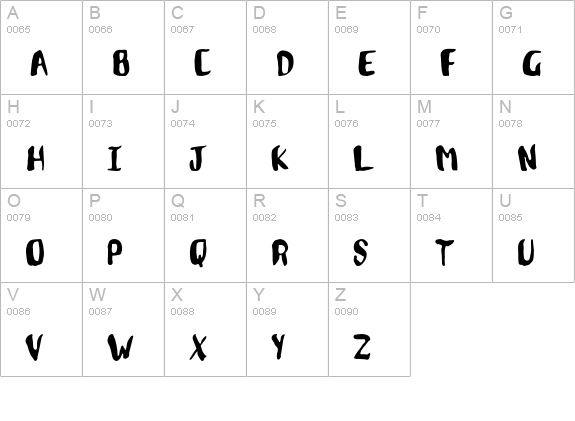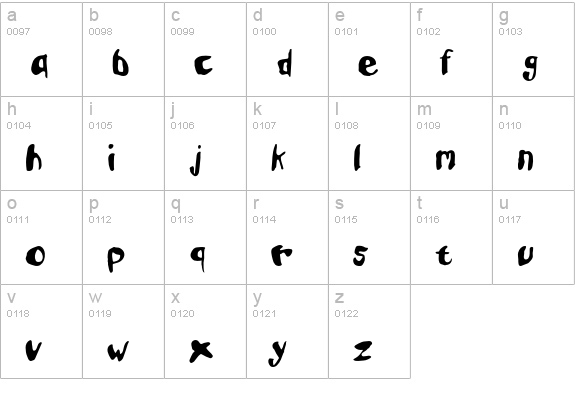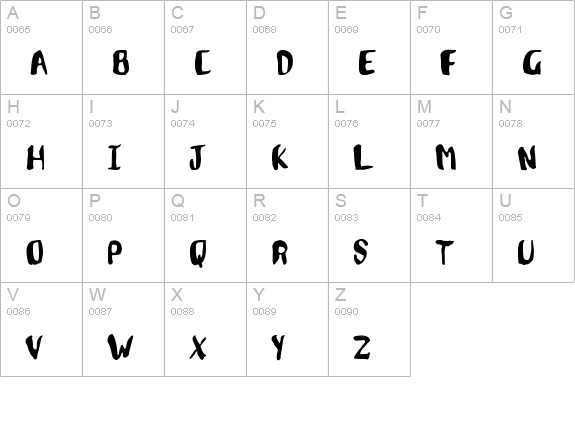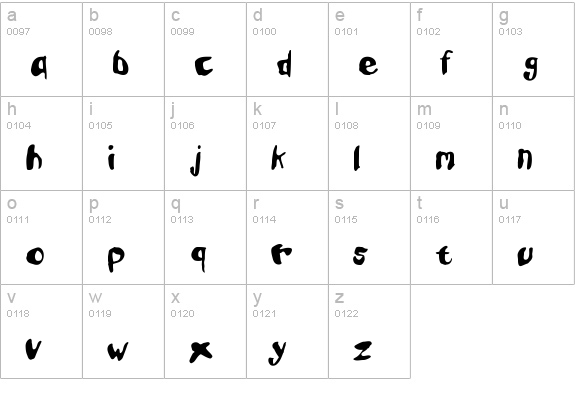
Oatmeal Font Details
Oatmeal font is a charming and versatile typeface that exudes warmth and friendliness. Its soft, rounded edges and playful curves give it a unique and inviting appeal that is perfect for a wide range of design projects. Whether you're working on a greeting card, website design, or branding materials, Oatmeal font will add a touch of whimsy and personality to your work. Best of all, Oatmeal font is available for free download at FontsMarket.com. This means that you can easily access this delightful typeface and use it in your projects without any cost. So why wait? Add Oatmeal font to your font library today and let your creativity shine with this delightful and free typeface.